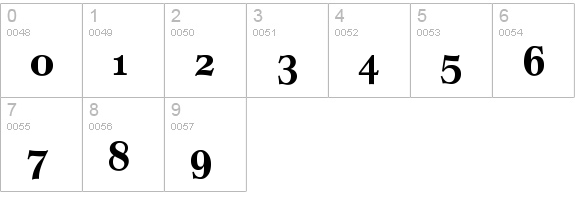
Cremona BQ Expert Bold OsF is a strong, high-contrast variant in the Cremona typeface family \xE2\x80\x94 well suited to headlines, attention-grabbing titles, and strong calls-to-action.